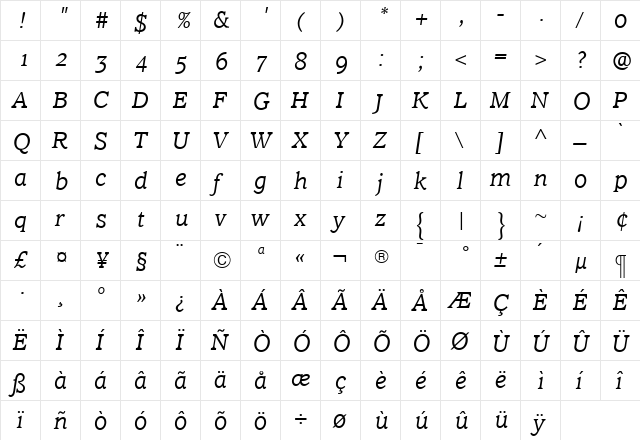
ClaremontLightItalicOS Roman Font Preview
Design Context for ClaremontLightItalicOS Typeface
ClaremontLightItalicOS offers clean, dependable letterforms without strong stylistic allegiance, making it a practical choice for designers who need flexibility. The dynamic lean of this cut emphasises speed and emphasis in any layout. Its slender proportions lend an understated elegance to any composition.
Pro Tip: Use ClaremontLightItalicOS for emphasis, pull quotes, and subheadings where its slanted energy can add rhythm to the layout.